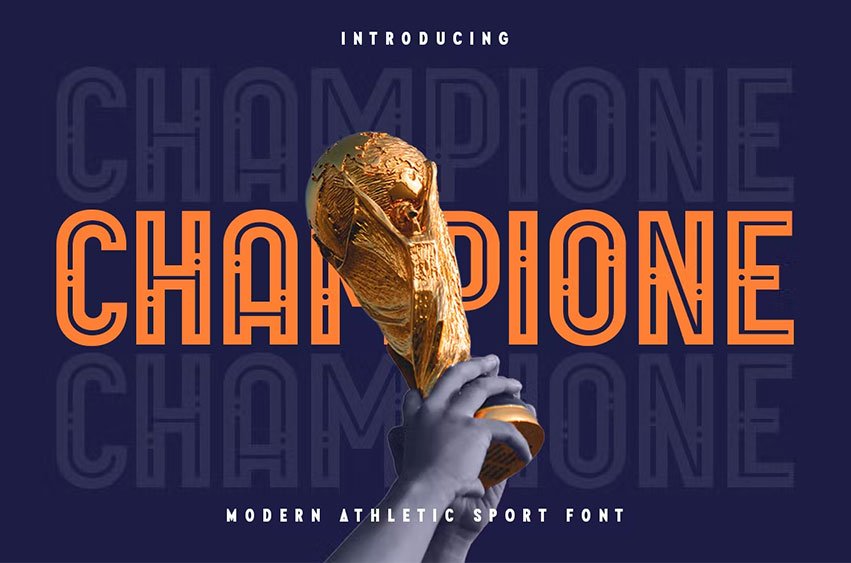
Champione Sport Font is a Modern Futuristic Athletic Sport Font that stylish, fancy, and unique characters are ready for Sports events, that you can combine to get any variations and unique shapes easily just in seconds with great characters. It is a Sans Serif Bold font that perfect for sports branding projects, jerseys, logos, wedding designs, social media posts, advertisements, product packaging, product designs, label, watermark, and any projects, it makes a high level of legibility.
- Character set A-Z
- All Uppercase
- Accented Characters (West Europe)
- Stylistic alternates